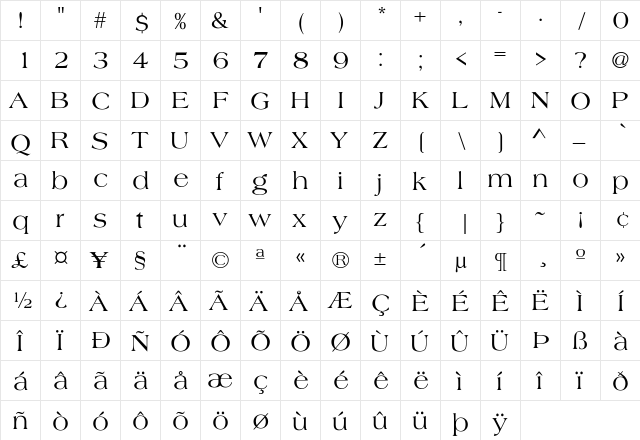
Heritage-Roman Regular
Design Context for Heritage-Roman Typeface
Heritage-Roman is a composed and adaptable typeface that performs quietly and consistently across a wide range of design contexts.